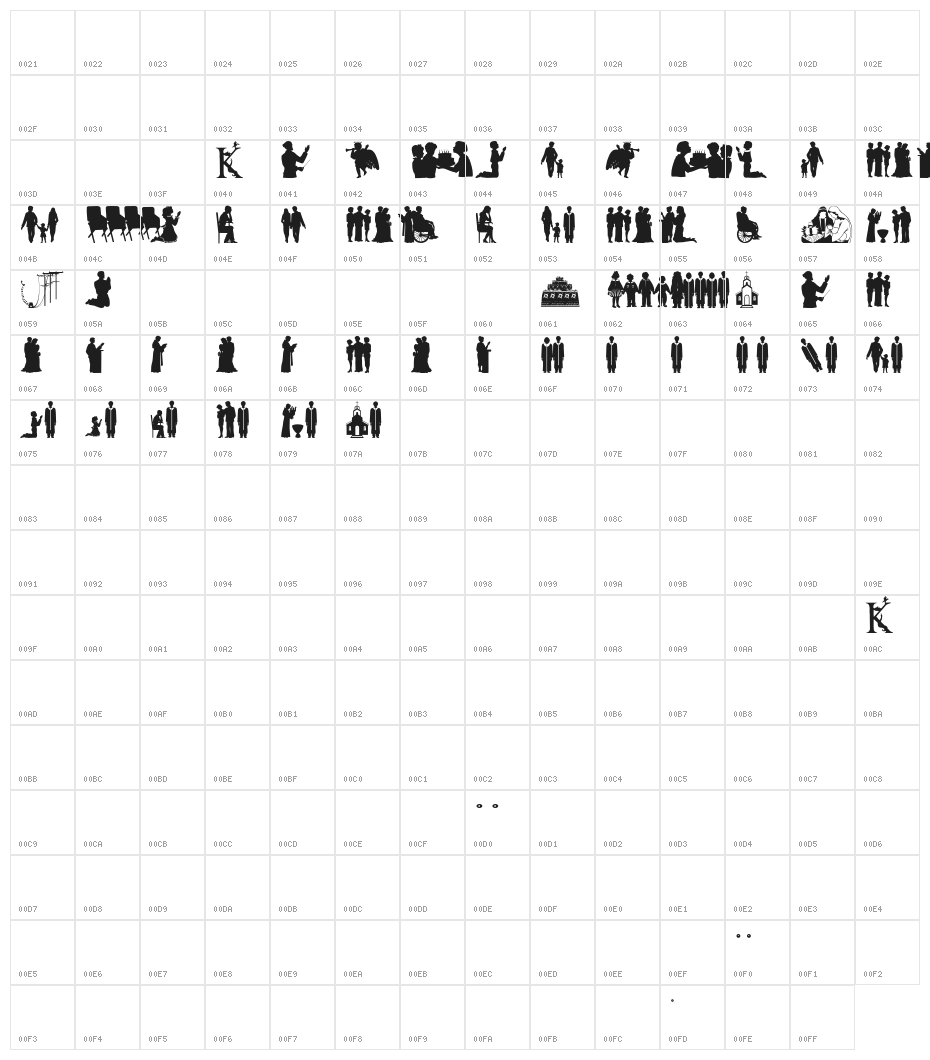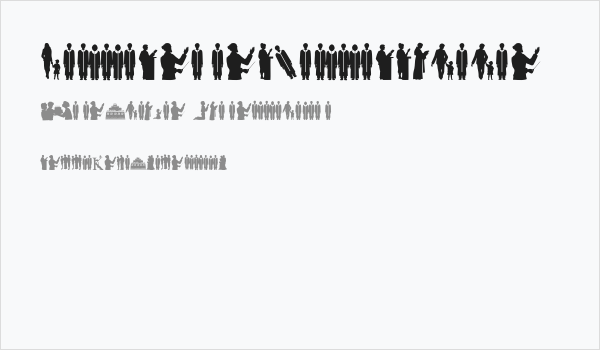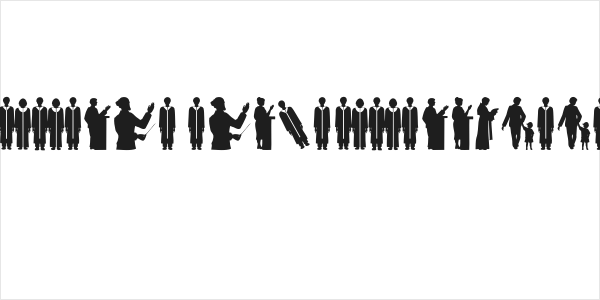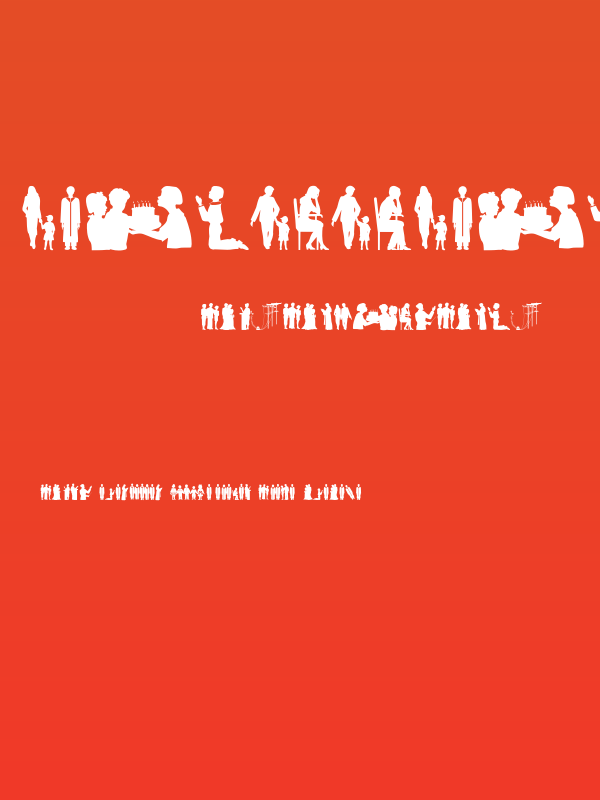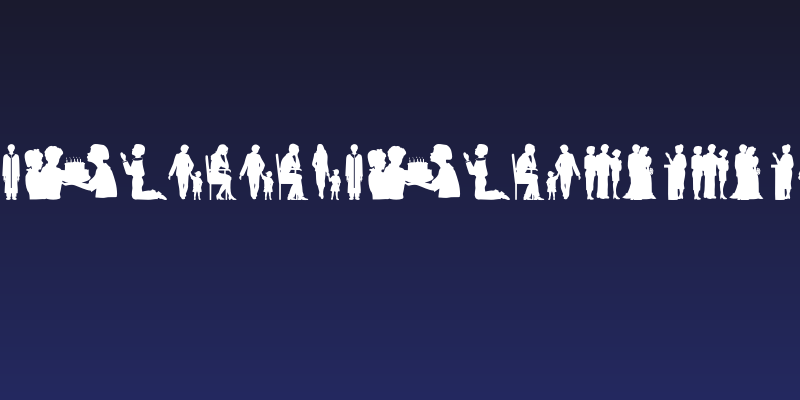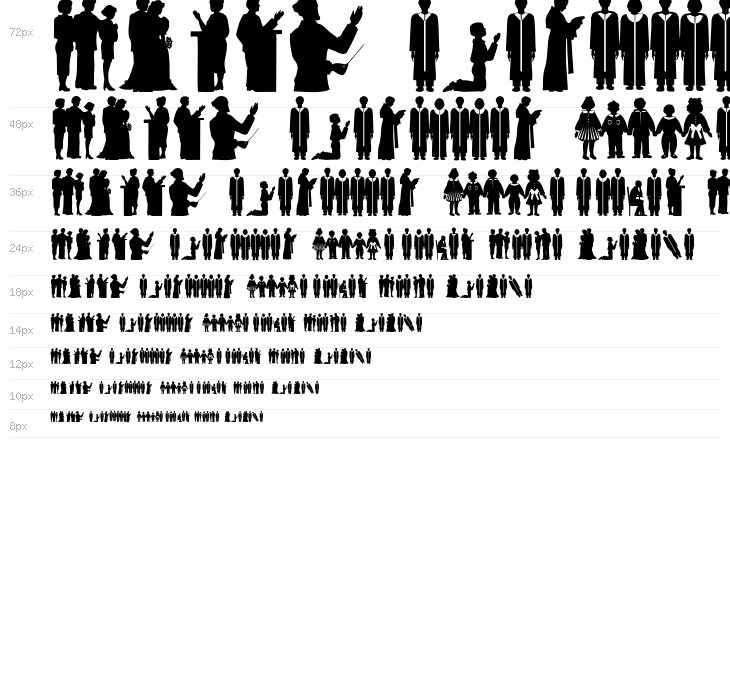
Scherenschnitte Font
Scherenschnitte Description
This font is composed of intricate silhouette illustrations depicting people, families, and community scenes, reminiscent of traditional paper-cut art. Each character is represented by a unique pictorial scene rather than standard letterforms, creating a highly decorative and narrative visual style.
| Overall Style | Decorative, Folk Art, Narrative |
| Use Case | Logos, Headlines, Themed event materials, Artistic projects |
| Proposed Projects | Storybooks, wedding invitations, event posters, folk art projects, cultural exhibitions. |